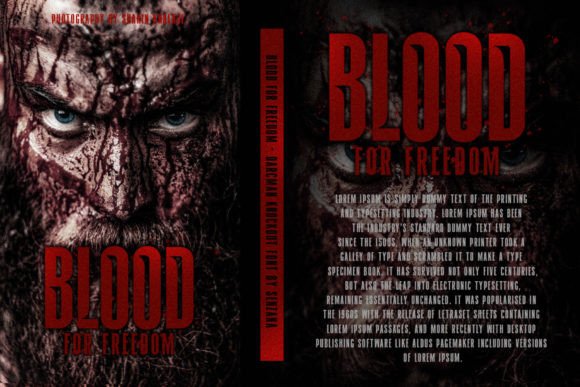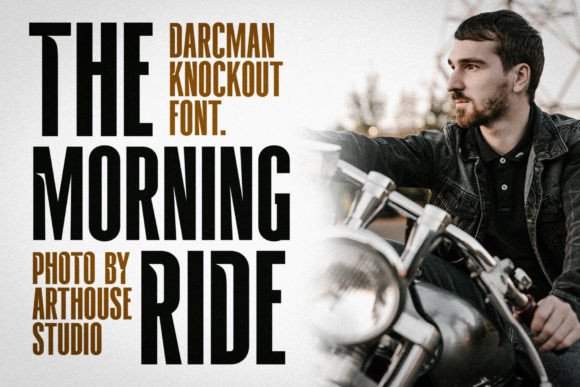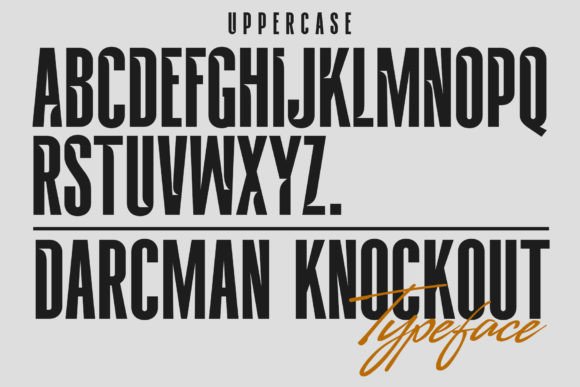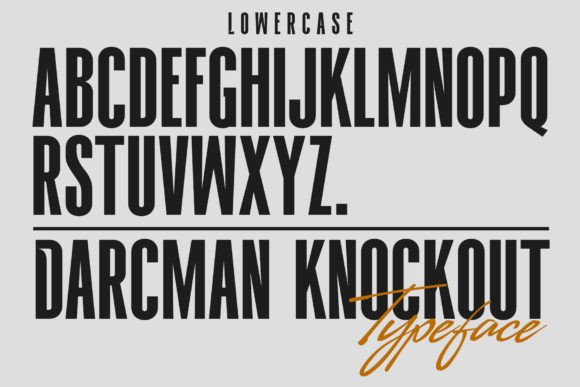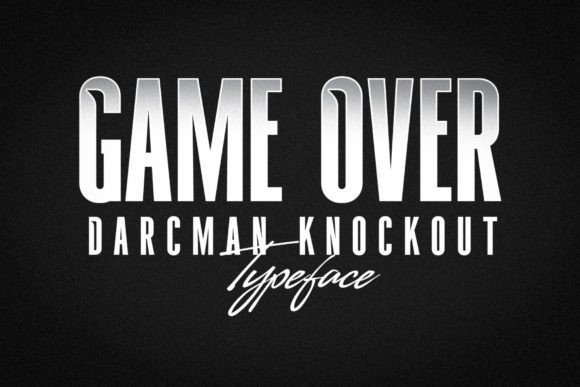
Darcman Knockout Font: Elevate Your Designs with Elegance and Boldness
In the world of typography, a font can make or break a design. It’s the foundation upon which the entire aesthetic is built. For designers and crafters looking to elevate their projects, the Darcman Knockout Font is a game-changer. This elegant and bold sans serif font is incredibly versatile, making it perfect for a wide range of applications, from wedding invitations and stationary art to social media posts and more.
The Essence of Darcman Knockout Font
Darcman Knockout is more than just a font; it’s a design statement. Its sans serif design gives it a clean and modern look that’s both timeless and trendy. The elegance of this font lies in its simplicity, making it highly legible and versatile. Whether you’re designing for print or digital platforms, Darcman Knockout ensures your message stands out with sophistication and style.
One of the standout features of the Darcman Knockout Font is its versatility. It’s a font that can be used across various mediums and for numerous purposes. Here are a few ways you can utilize this fantastic font:
- Wedding Invitations: Create stunning wedding invitations that set the tone for the big day. The elegant and bold style of Darcman Knockout adds a touch of sophistication and romance.
- Stationary Art: Elevate your stationery with beautiful designs that incorporate the Darcman Knockout Font. From letterheads to thank you cards, this font adds a professional yet personal touch.
- Social Media Posts: Make your social media posts stand out with the bold and eye-catching Darcman Knockout Font. It’s perfect for quotes, announcements, and promotional content.
- And More: The possibilities are endless. Use Darcman Knockout for branding, packaging, signage, and any other design project that requires a font with impact.
Why Designers and Crafters Love Darcman Knockout
Designers and crafters have fallen in love with the Darcman Knockout Font for several reasons:
- Elegance: The font’s elegant design makes it perfect for projects that require a touch of sophistication.
- Boldness: The bold style ensures your message doesn’t go unnoticed, making it ideal for headlines and statements.
- Versatility: Its adaptability across different mediums and design applications makes it a valuable addition to any designer’s toolkit.
- Legibility: The clean and simple sans serif design ensures high legibility, even at smaller sizes.
Tips for Using Darcman Knockout Font
To get the most out of the Darcman Knockout Font, consider the following tips:
- Mix and Match: Combine Darcman Knockout with other fonts to create contrast and visual interest. Its bold style pairs well with simpler fonts.
- Play with Sizes: Use different sizes to create hierarchy in your design. The boldness of Darcman Knockout ensures it stands out, even at smaller sizes.
- Experiment with Colors: While the font itself is the star, experimenting with colors can enhance its appearance. Consider gradient effects or contrasting colors to make it pop.
The Darcman Knockout Font is a powerful tool for designers and crafters looking to elevate their projects. Its elegant and bold sans serif design, combined with its versatility, makes it suitable for a wide range of applications. Whether you’re creating wedding invitations, stationary art, social media posts, or any other design project, Darcman Knockout is sure to make a lasting impression. Add it to your toolkit today and discover the difference it can make in your designs.